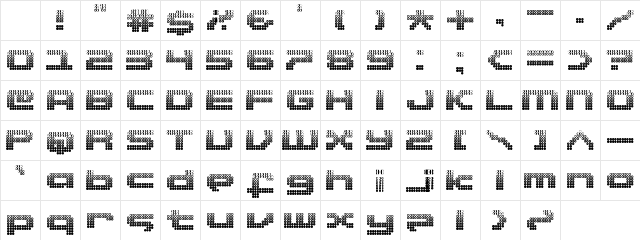
Zosimo Hive is a composed and adaptable typeface that performs quietly and consistently across a wide range of design contexts.
Pro Tip: Use Zosimo Hive in both headline and body roles to test its range before committing to a single application.